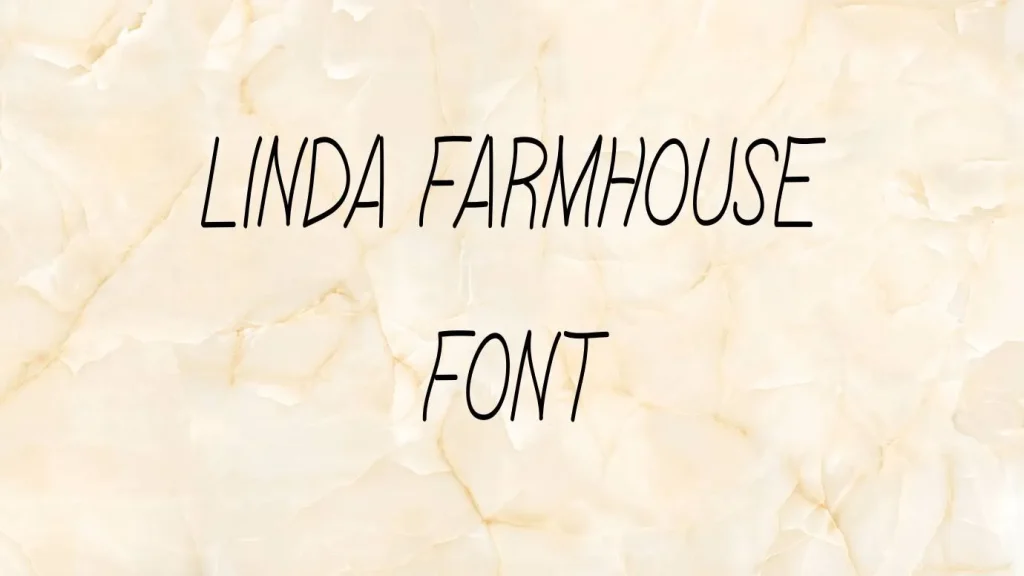
Linda Farmhouse Font is a classic handwritten font that looks natural. The readable and fashionable characters of this typeface are the reason for its steadily rising popularity.
Due to its fashionable and appealing characters, this font is best suited for your individual projects. From the family of handwritten typefaces, it is a very well-liked and contemporary font. TTF file formats are available for this elegant typeface.
The Designer Behind Linda Farmhouse Font
This classic and at the same time modern handwritten typeface is designed by Vladocar. This typeface will be a tremendous asset to your library of fonts regardless of the subject matter because it has the ability to improve any creation.
This font is characterized by wonderful handwritten calligraphic characters, including punctuation and financial symbols that can be used to create new script and calligraphy designs.  The family includes only one weight. This Font is a versatile typeface that can be used in a variety of design projects. Down here you are able to see the features of this font which comprises alphabet structure and all that you will need to know.
Who is the designer of Linda Farmhouse font?
This classic and at the same time modern handwritten typeface is designed by Vladocar.
Which font most closely resembles Linda Farmhouse Font?
The font family contains a number of fonts that are the closest to this one, but Fort Carsey Font is the most comparable.